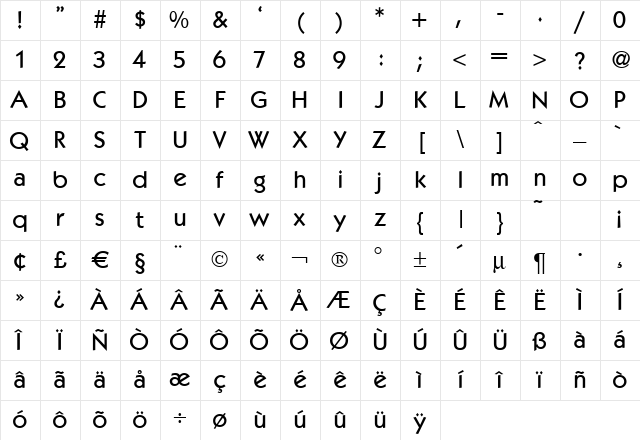
K792-Geometrical-Medium Regular
Design Context for K792-Geometrical-Medium
K792-Geometrical-Medium is a composed and adaptable typeface that performs quietly and consistently across a wide range of design contexts.
Pro Tip: Use K792-Geometrical-Medium in both headline and body roles to test its range before committing to a single application.